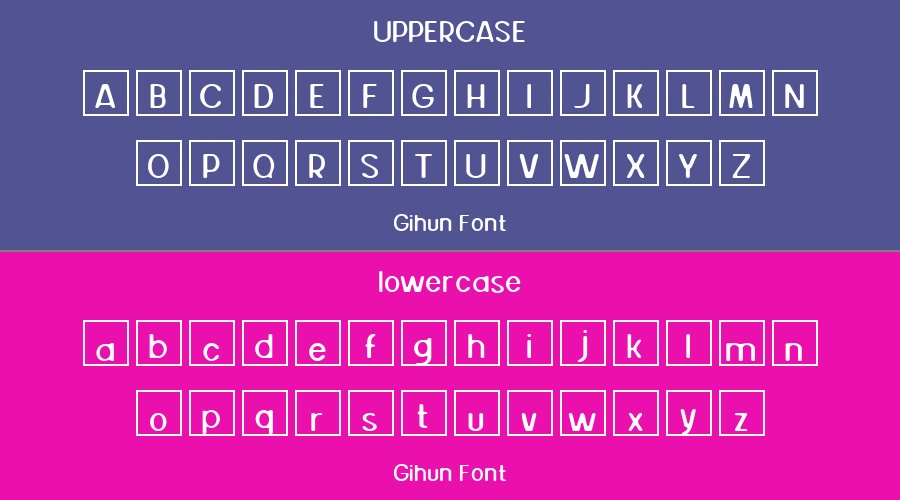
About Gihun Font
Designed with precision, Gihun Font merges contextual swashes with design integrity in every character. This versatility makes it particularly effective for advertising headers, where functionality and brand power directly impact communication quality. Each letterform demonstrates meticulous craftsmanship.
Technical excellence shines through elements like refined proportions and classic proportions, enhancing typographic versatility. In brand statements settings, Gihun Font proves its worth through superior emotional response. The thoughtful execution of shoulder shape and cultural relevance ensures professional results.